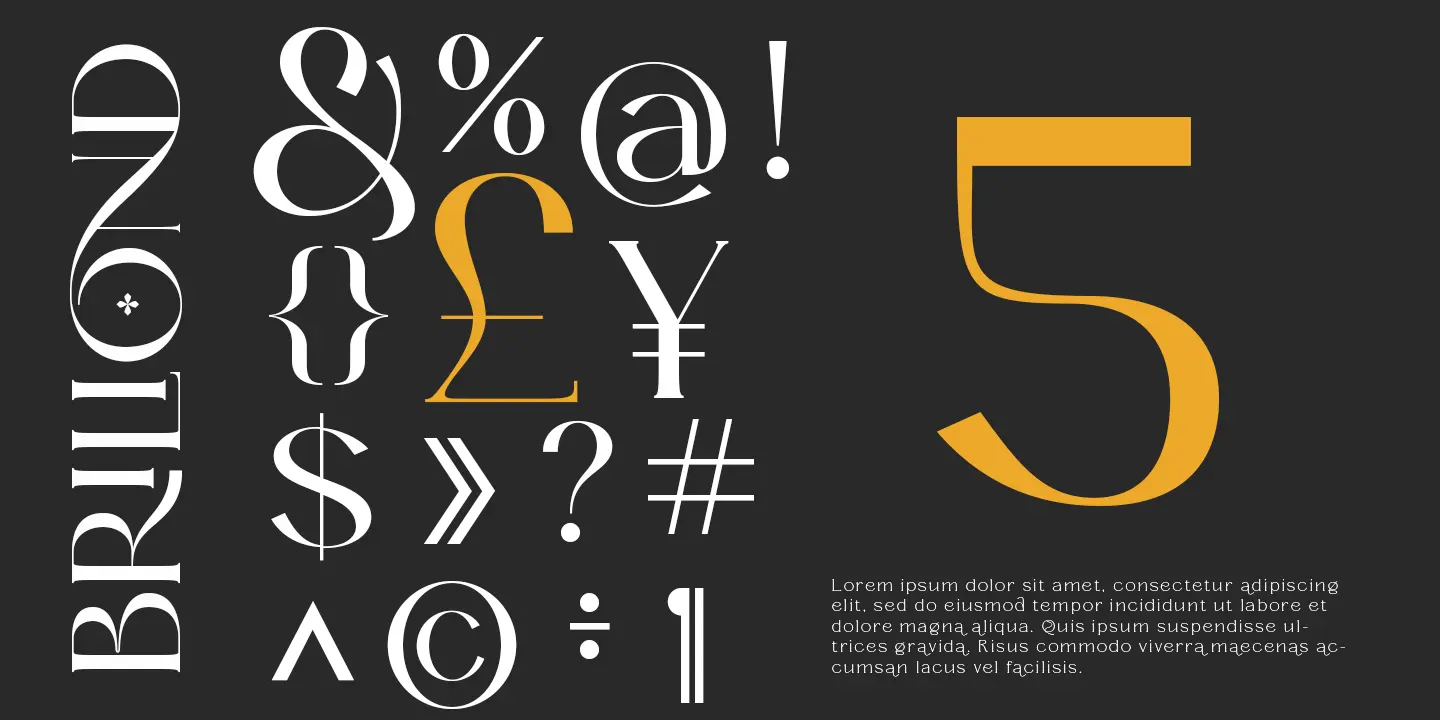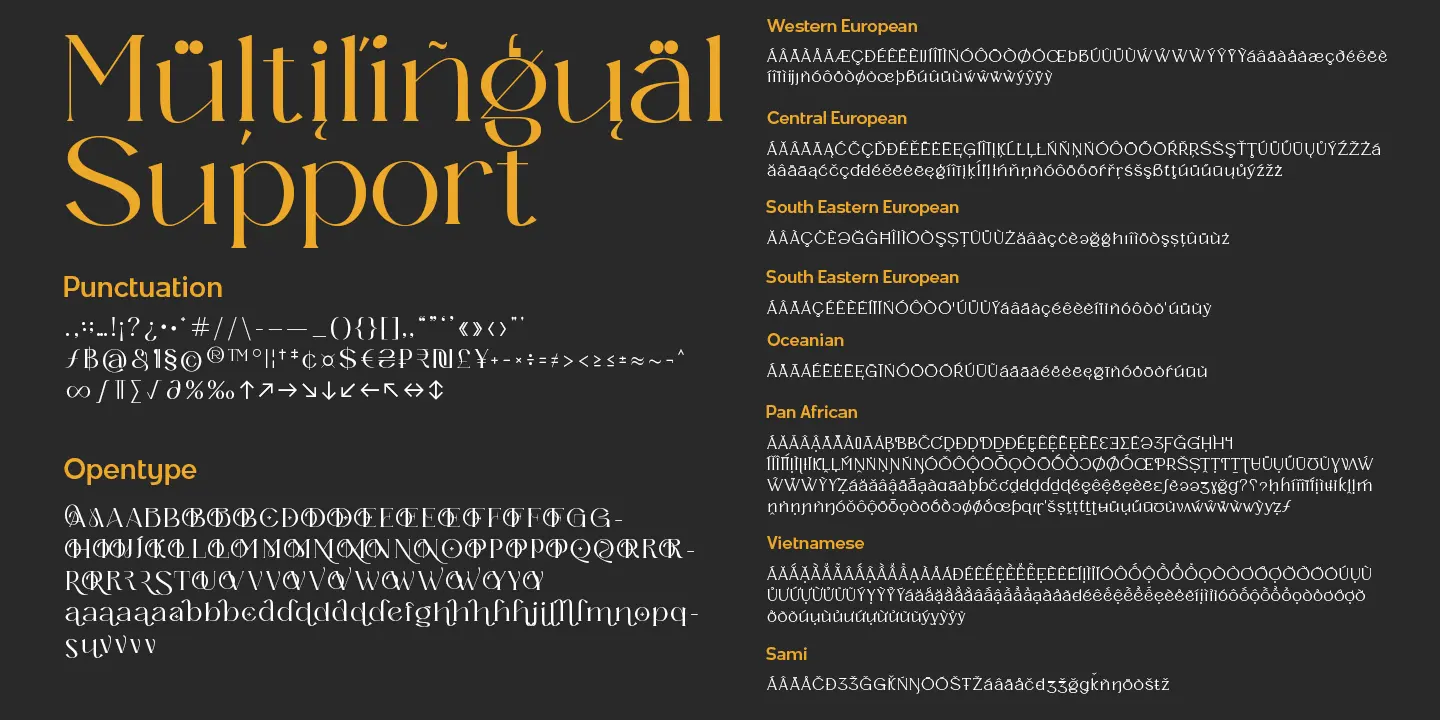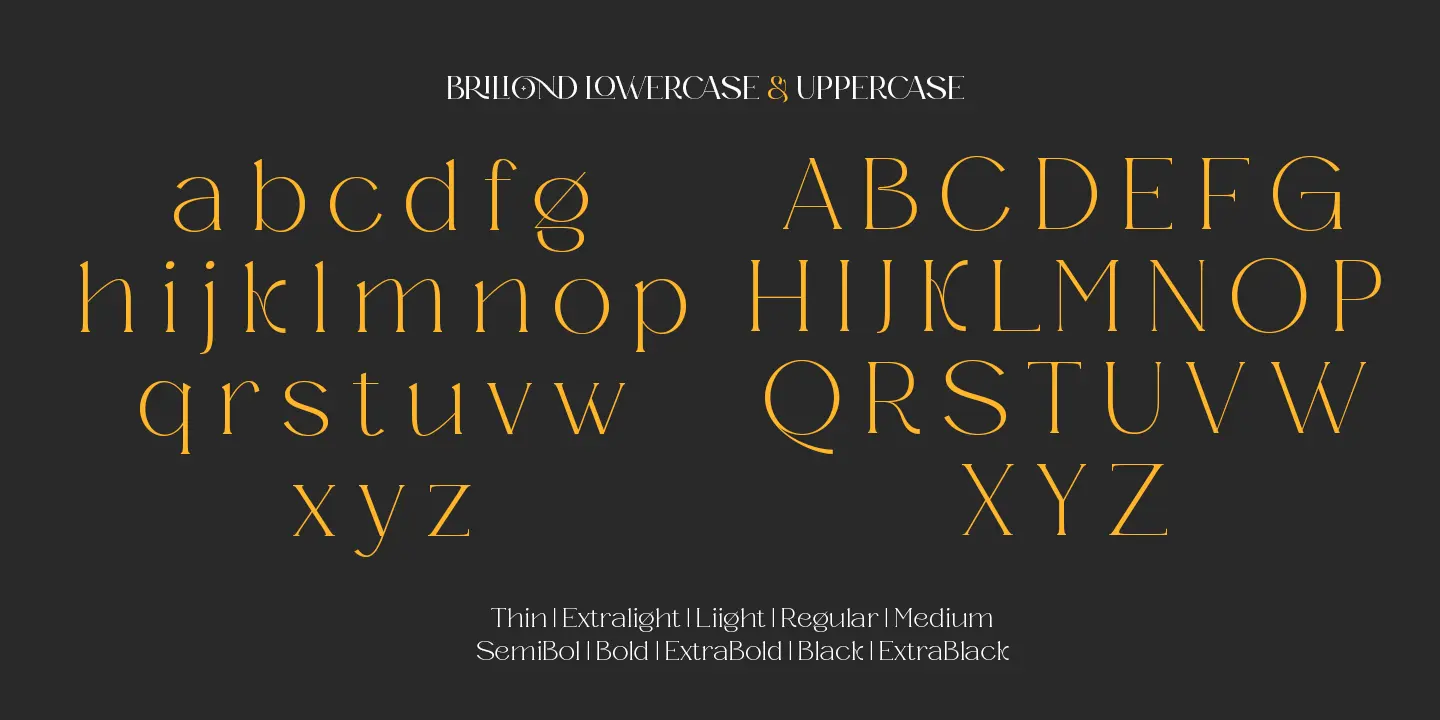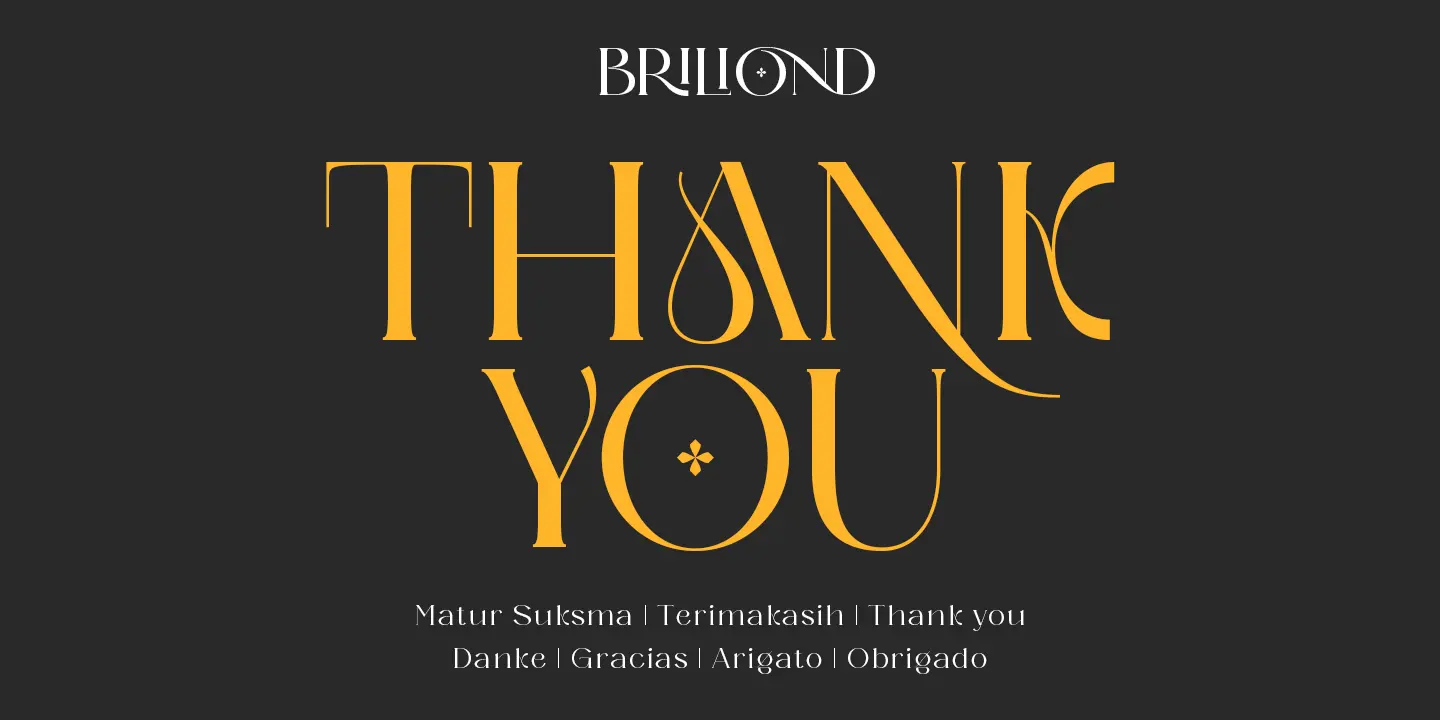
Briliond has an aesthetic style, and the serif-type tagline is modern and elegant. This font is equipped with ten levels of thickness, from thin to black suits your needs. Briliond is also equipped with the latest professional characteristics that can present an elegant and attractive identity for your company or project for business purposes. It goes well with modern serifs, and scripts depicted or stand firm as a title and brand representative for an elegant look.